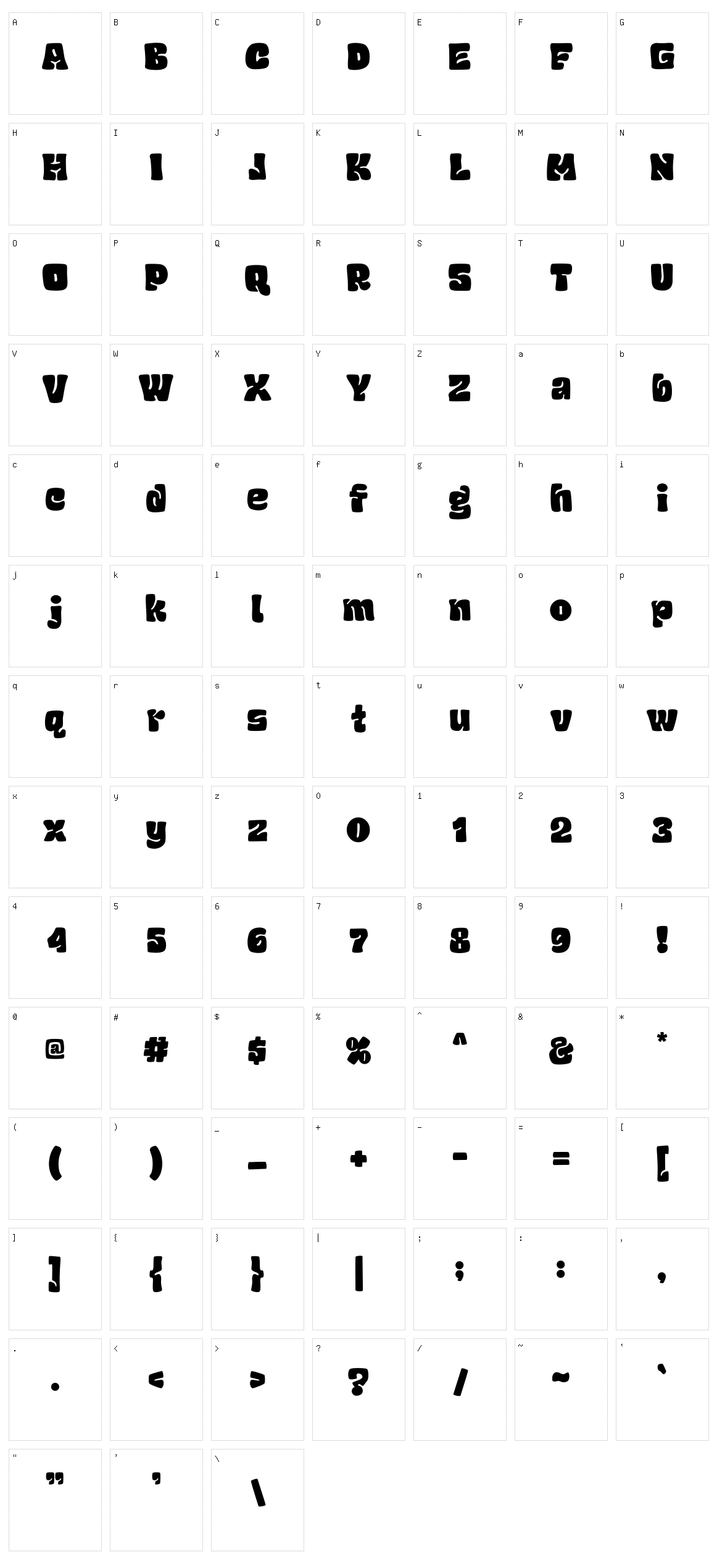
The free font Chubby And Groovy is carefully designed by Tokokoo Studio, showcasing a thoughtful balance of creativity and usability and falls under the Groovy font style. When you download the ZIP file, it contains only 43.92 KB of font files, making it lightweight and quick to download. Please review the license details below to understand permitted usage and distribution rights. If license information is not available, we recommend using this font for personal projects only or contacting the author directly for commercial usage permissions.